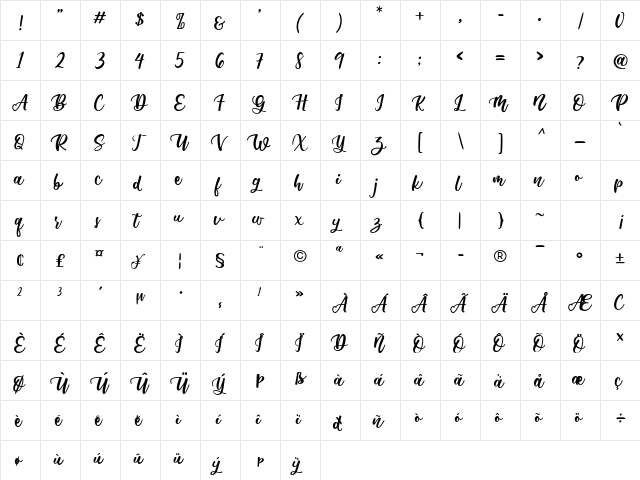
Menthari Regular
| Designer | abu rumaisha doni |
Design Context for Menthari Typeface
Menthari is a composed and adaptable typeface that performs quietly and consistently across a wide range of design contexts.